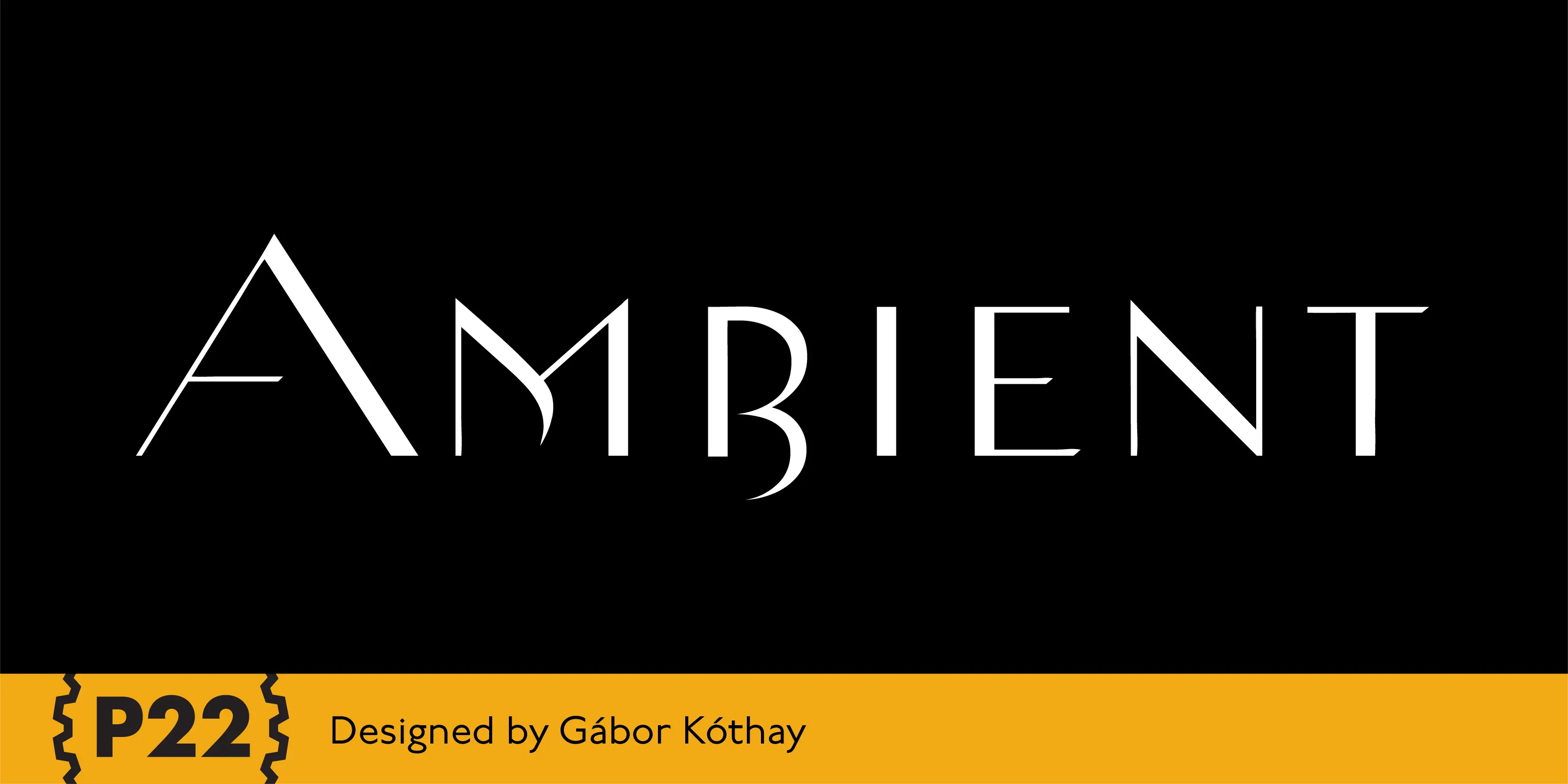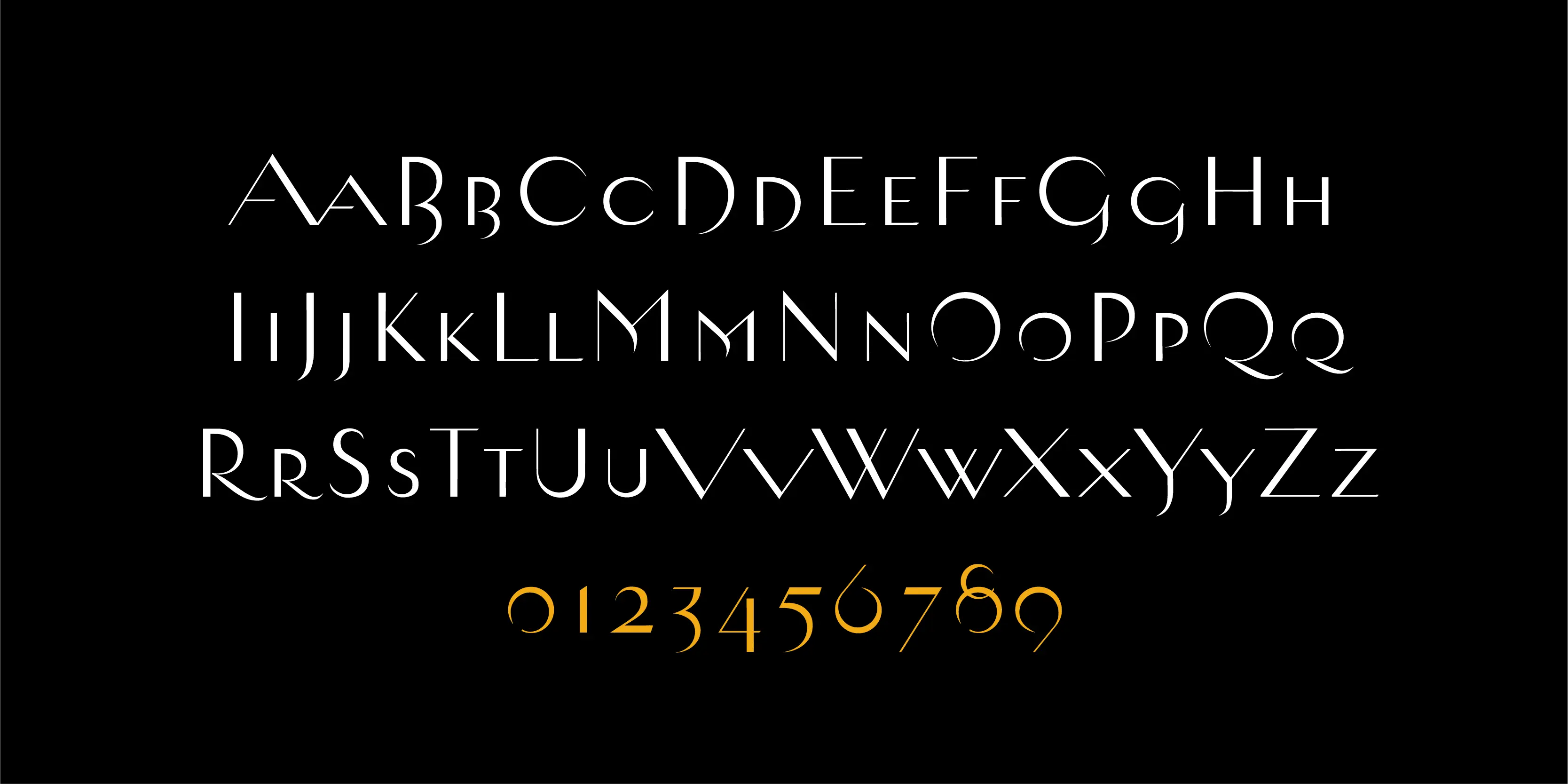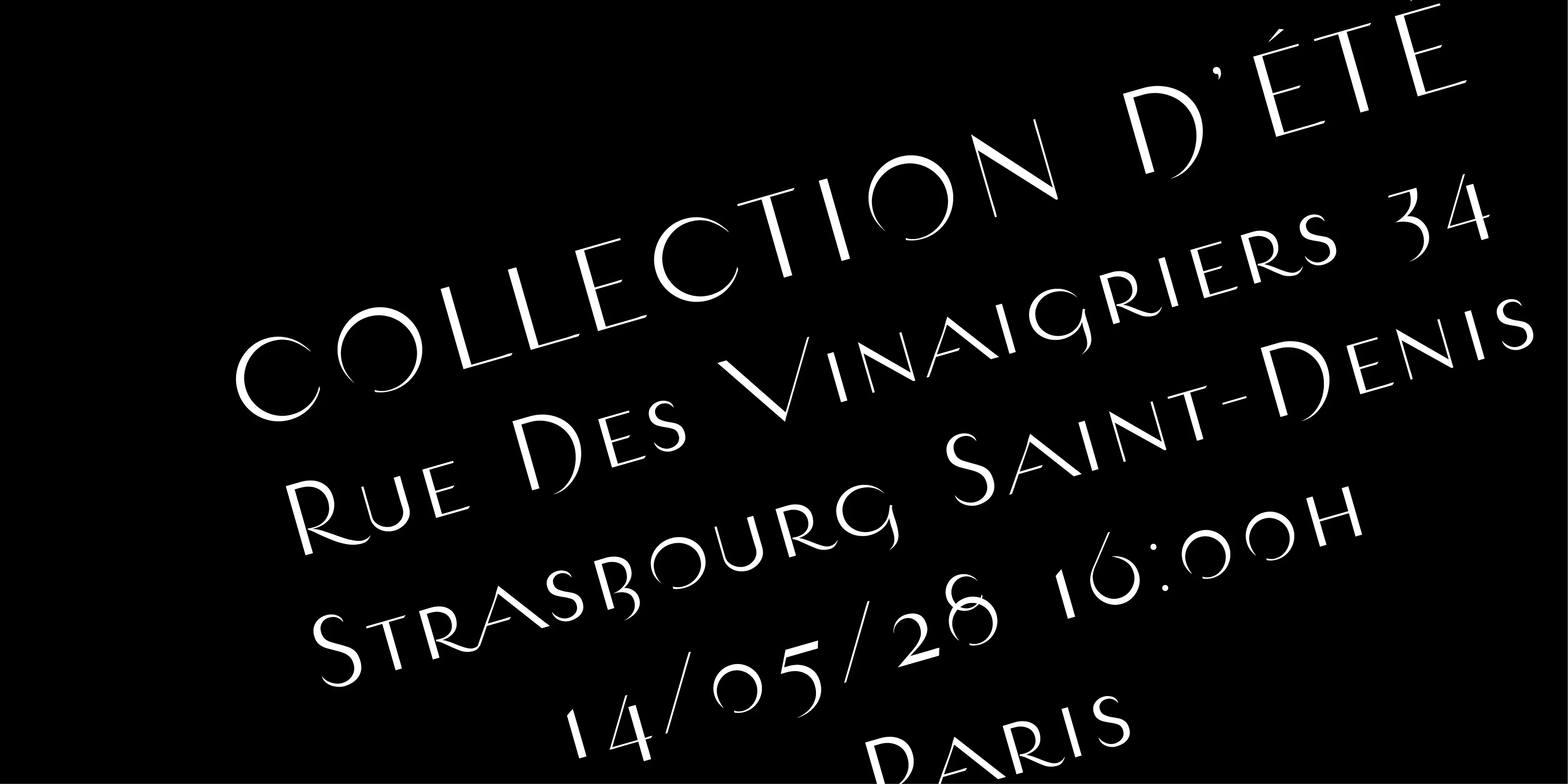
Ambient Font
Ambient
P22 Ambient is a deconstructed sans that captures the essence of basic Roman letterforms. With unexpected edits and additions Gabor Kothay has designed something that becomes starkly nocturnal and dramatically modern. Ambient is the perfect set of letters for stylish loungewear, fashion magazine headlines, young adult book covers, dramatic eau de cologne packaging, or for a culinary brand and identity.